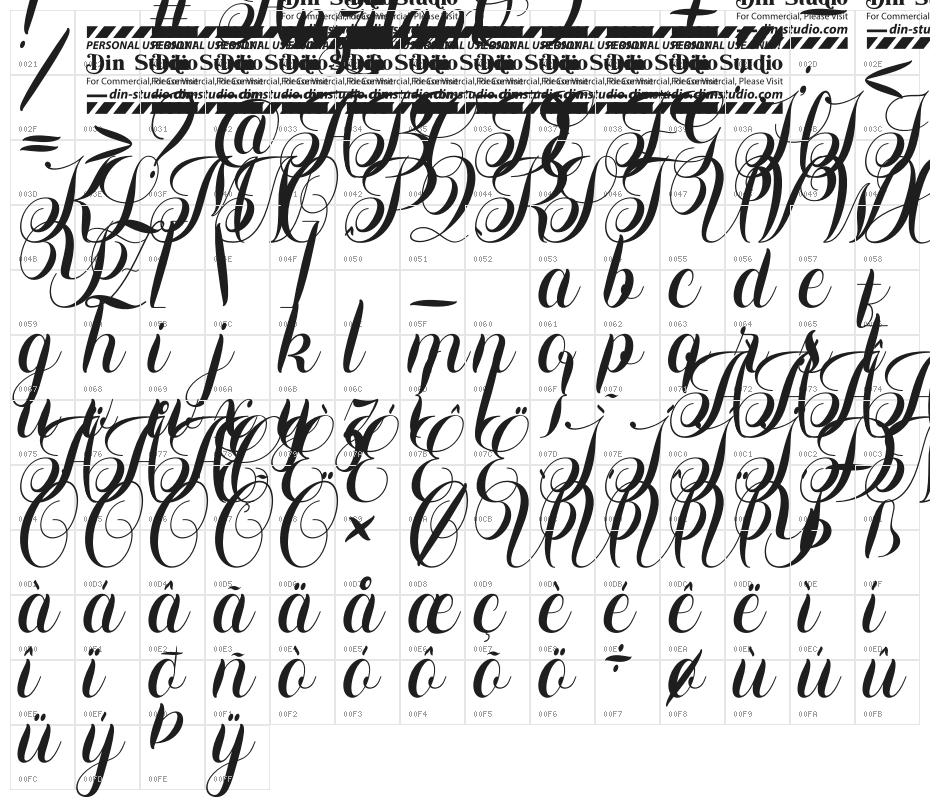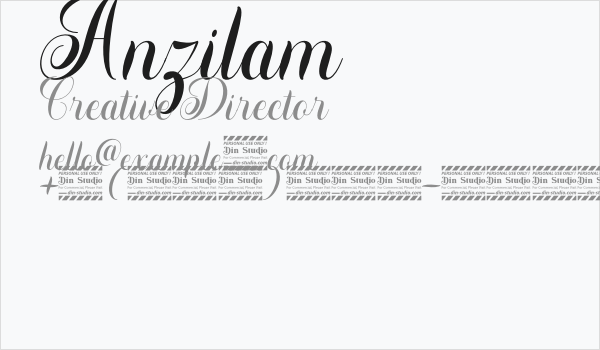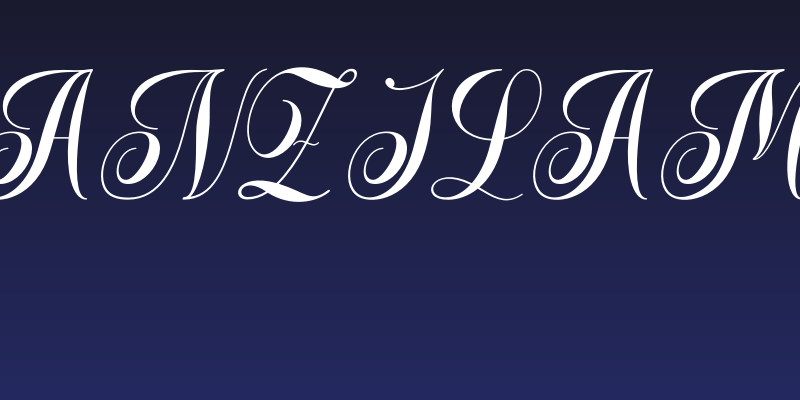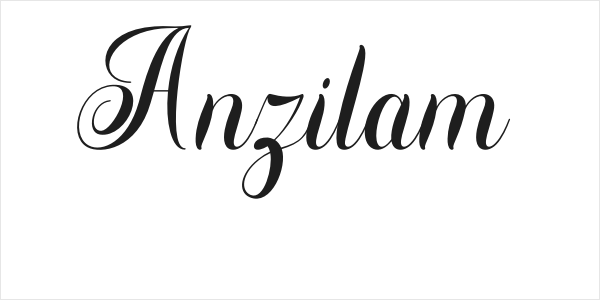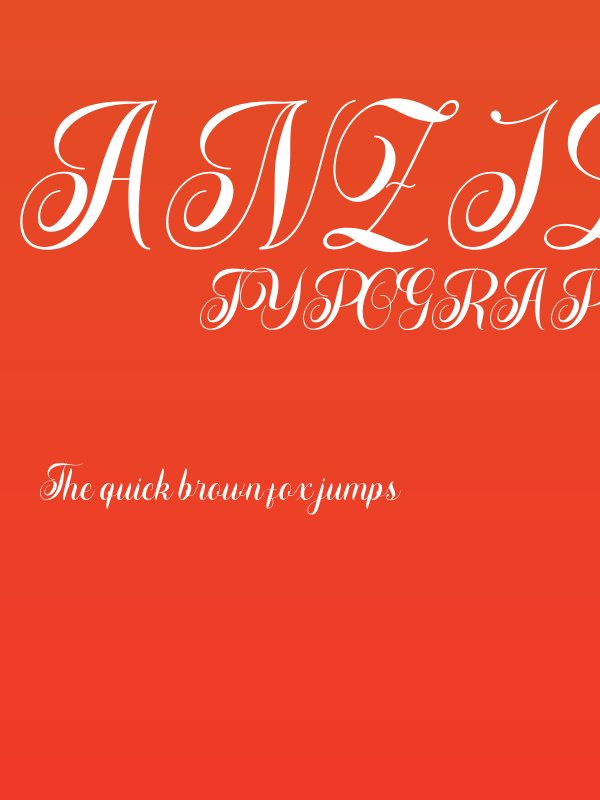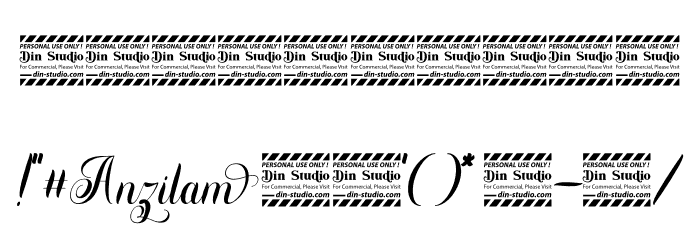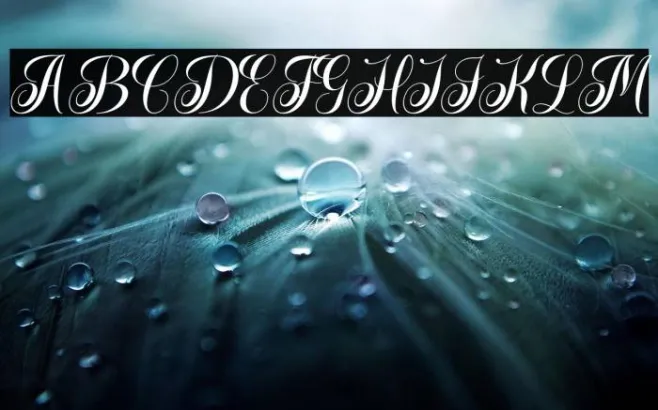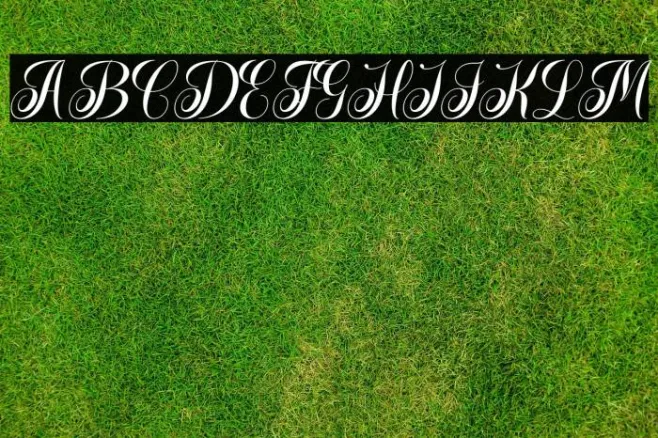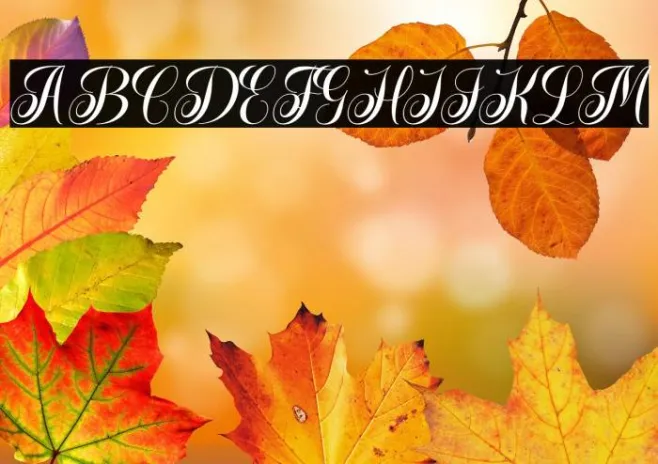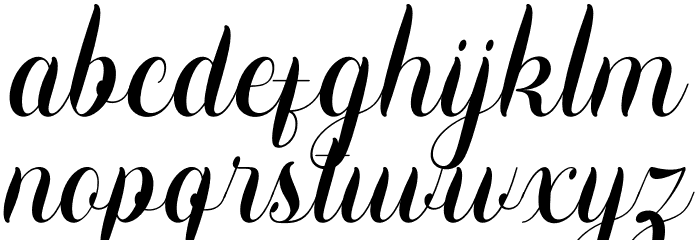
Anzilam Font
Anzilam Description
This elegant script font features a sophisticated and flowing design, characterized by its graceful curves and loops. The uppercase letters exhibit a decorative flair with intricate swirls, while the lowercase letters maintain a smooth and connected style, enhancing readability. The font's overall appearance is both stylish and refined, making it suitable for formal and creative applications. The numerals and special characters are designed to complement the alphabet, maintaining the font's cohesive aesthetic. This font is ideal for projects that require a touch of elegance and sophistication.
ANZILAM UPPERCASE
ANZILAM LOWERCASE
ANZILAM OTHER CHARS
| Proposed Projects | Ideal for wedding invitations, elegant branding, greeting cards, and luxury packaging. |